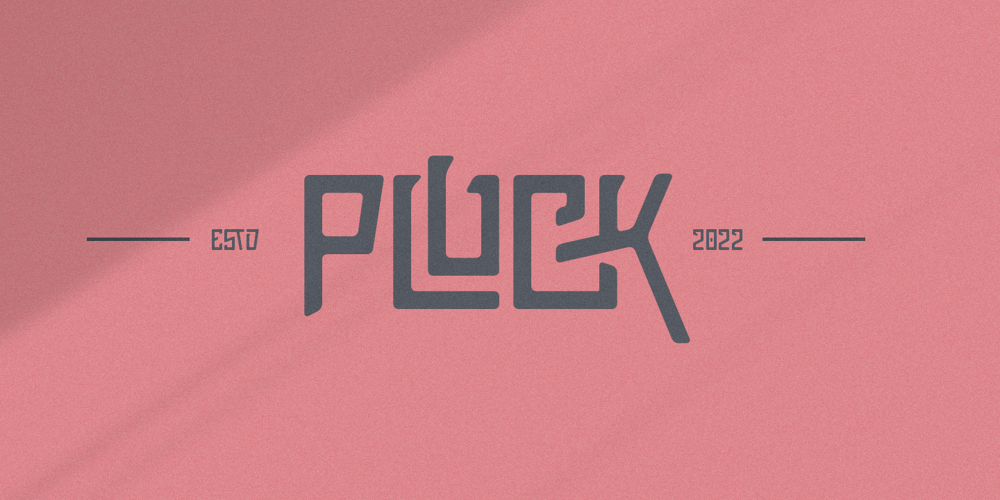
Pluck Font Family was designed by Jarnawi Saja and published by Grontype. Pluck contains 1 styles and family package options. Pluck is an attractive Display typeface that created elegant and modern look. To pick this font is a solution for your awesome graphic projects such a magazine Header, movie poster or flyer design that require a unique touch. This font is a great option in designing logo tagline, and also can be used in invitational cards and another printable stuffs.Pluck Features: Pluck standard glyphs Numeral and Punctuations Multilingual support Discretionary Ligatures Thankyou for picking this font for your awesome projectsRegard, Grontype